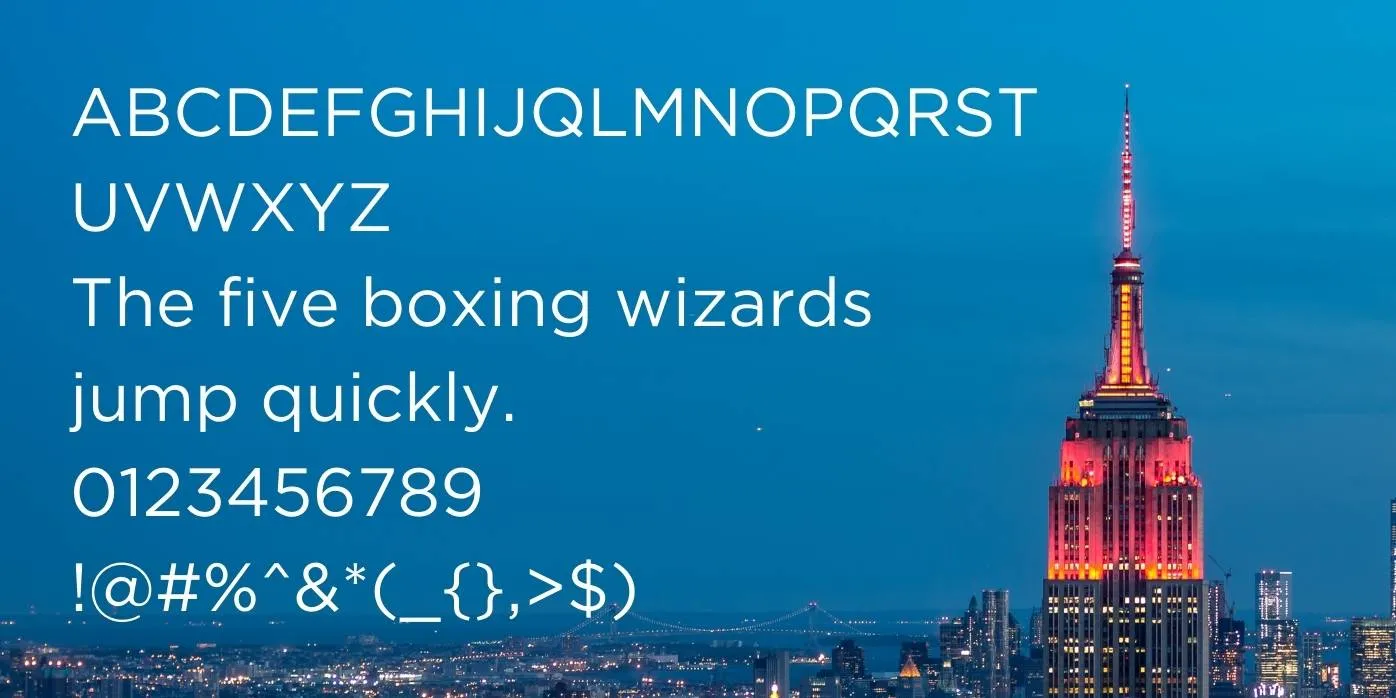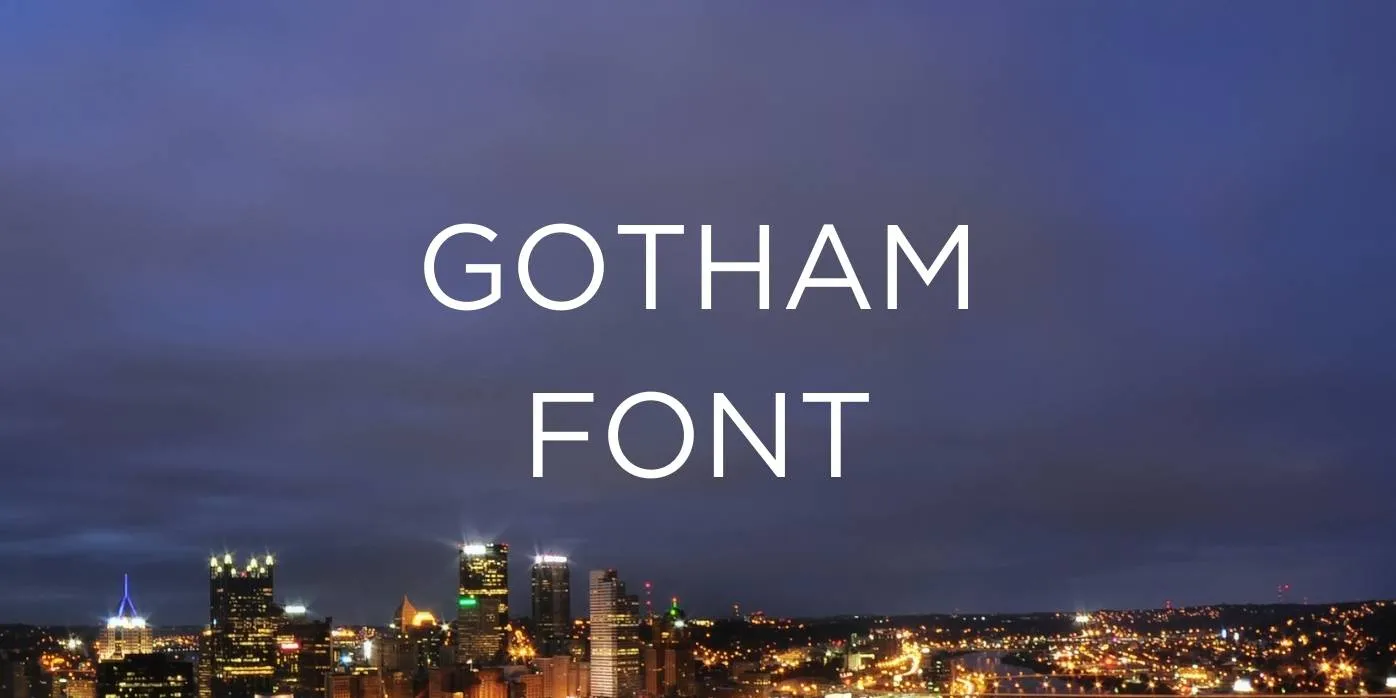
Gotham Font
Gotham Font is a very prominent and well-known typeface that belongs to a Sans Serif typeface family. The designers of this typeface are two American-type designers named  Tobias Frere-Jones and Jesse Ragan and it is released in 2000. This font has a Geometrical shape and fantastic look and this font got fam after being used in many notable places. This font is very memorable because it was used in the Obama campaign where he spoke.
It has Light, Bold, Italic and all the rights can fitt with other weights also.